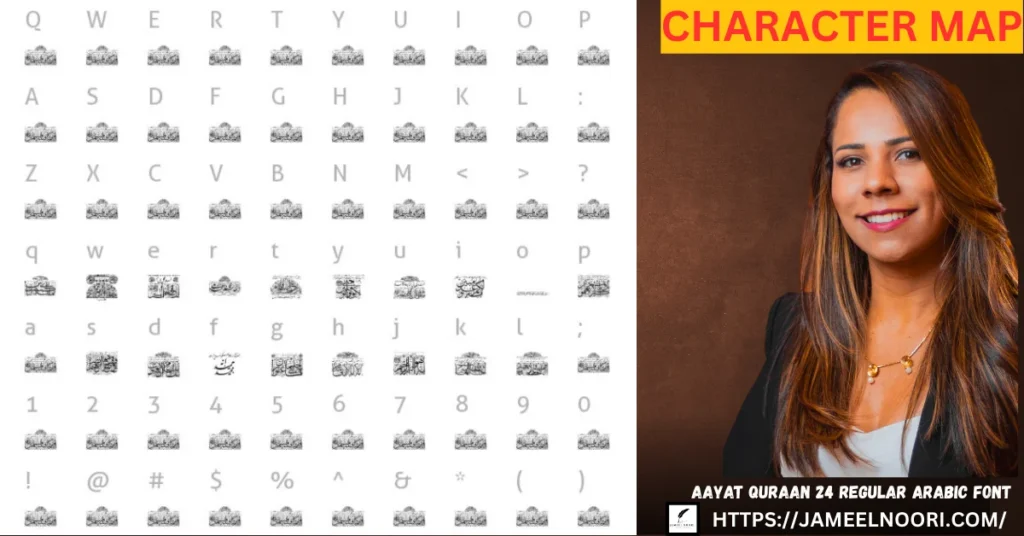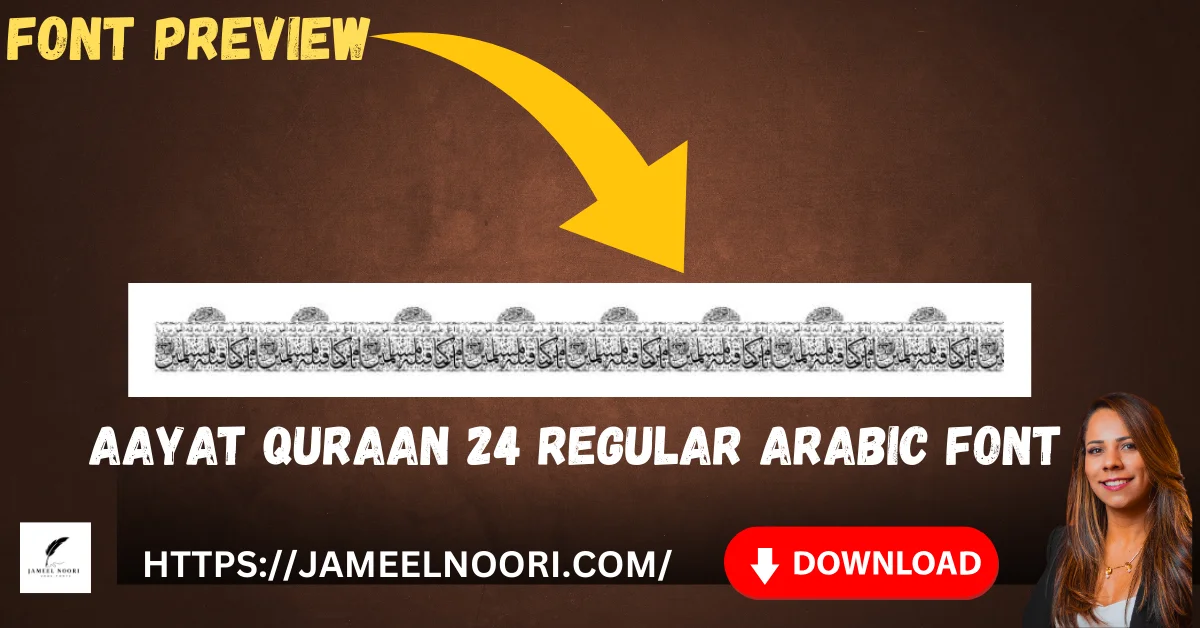
Aayat Quraan 24 Regular Arabic Font is one of the most elegant and widely used Arabic fonts today. Designers, typographers, and Urdu language enthusiasts often prefer this font for its readability, aesthetic appeal, and calligraphic style. With over 62,869 downloads and a user rating of 4.38 out of 5, this font is clearly a popular choice for both personal and professional use.
Features and Benefits of Aayat Quraan 24 Regular Arabic Font
Key Features:
- Elegant Urdu & Arabic calligraphy
Benefits:
- Improves readability and aesthetics of Urdu/Arabic content.
- Saves time for designers by providing ready-to-use calligraphy.
What Makes Aayat Quraan 24 Regular TTF Arabic Font Unique?
Aayat Quraan 24 Regular Arabic Font stands out for several reasons:
- Elegant Calligraphy: Perfect for Quranic texts, Urdu literature, and decorative headings.
- High Readability: Ideal for both print and digital mediums.
This font not only enhances the beauty of your Urdu or Arabic content but also ensures professional presentation.
Best Uses of Aayat Quraan 24 Regular Arabic Font
Using Aayat Quraan 24 Regular Arabic Font creatively can enhance your projects. Popular uses include:
- Quranic calligraphy and Islamic texts.
- Urdu typography in books, magazines, and newspapers.
- Digital designs, social media graphics, and banners.
- Invitations, posters, and certificates with Arabic script.
Aayat Quraan 24 Regular Arabic Font vs Other Arabic Fonts
When compared to other Arabic fonts like Naskh, Diwani, or Thuluth, Aayat Quraan 24 Regular Arabic Font offers a balanced design that combines elegance with readability.
Comparison Table
| Font Name | Readability | Aesthetic | Popularity |
| Aayat Quraan 24 Regular | High | Elegant | High |
| Naskh | Medium | Traditional | Medium |
| Thuluth | Low | Artistic | Medium |
| Diwani | Medium | Decorative | Low |
Tips for Using Aayat Quraan 24 Regular Arabic Font
- Maintain proper spacing: Avoid overcrowding letters for better readability.
- Combine with Urdu fonts: Mix with complementary Urdu fonts for modern designs.
- Use high-resolution outputs: Ideal for print media to retain calligraphy details.
- Keep consistent sizes: Avoid using too small font size to preserve legibility.
Aayat Quraan 24 Regular Arabic Font is an excellent choice for anyone looking to enhance Urdu and Arabic typography. Its elegance, readability, and wide compatibility make it a top-rated font for designers, educators, and calligraphy enthusiasts in Pakistan and beyond. Whether for print, digital media, or social projects, this font ensures professional quality and beautiful presentation.
What is Aayat Quraan 24 Regular Arabic Font?
It is a TrueType Arabic font designed for Quranic and Urdu typography.
What makes it different from other Arabic fonts?
It combines elegant calligraphy with high readability.
Does it support Urdu content as well?
Yes, it supports both Urdu and Arabic script seamlessly.